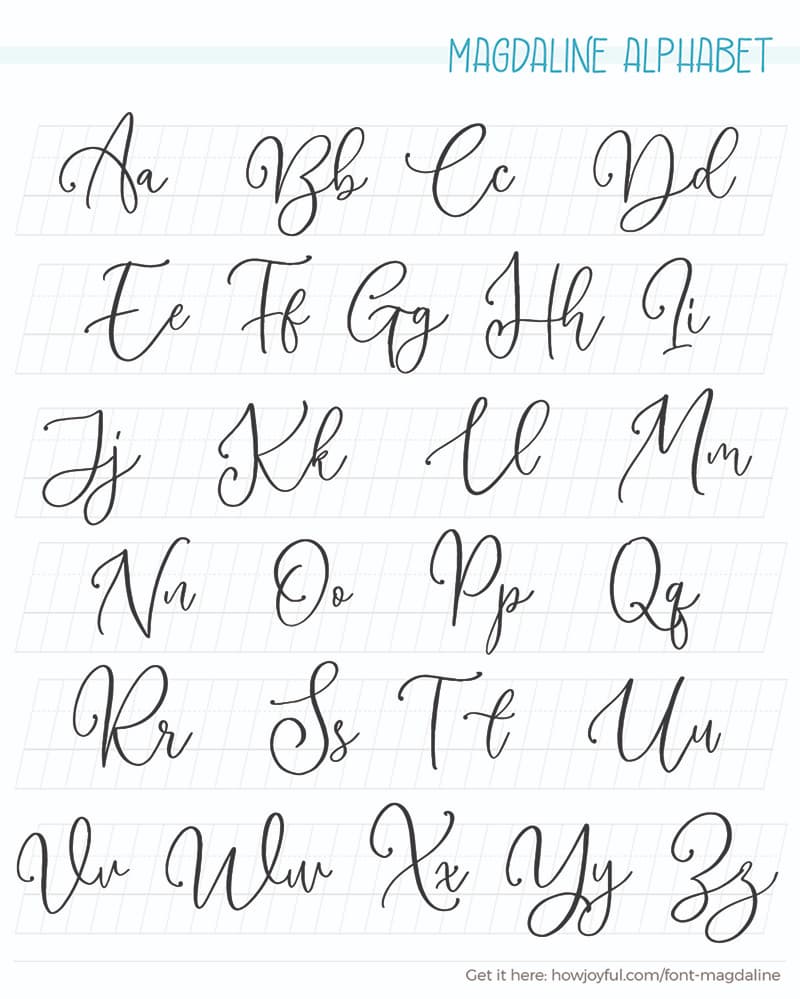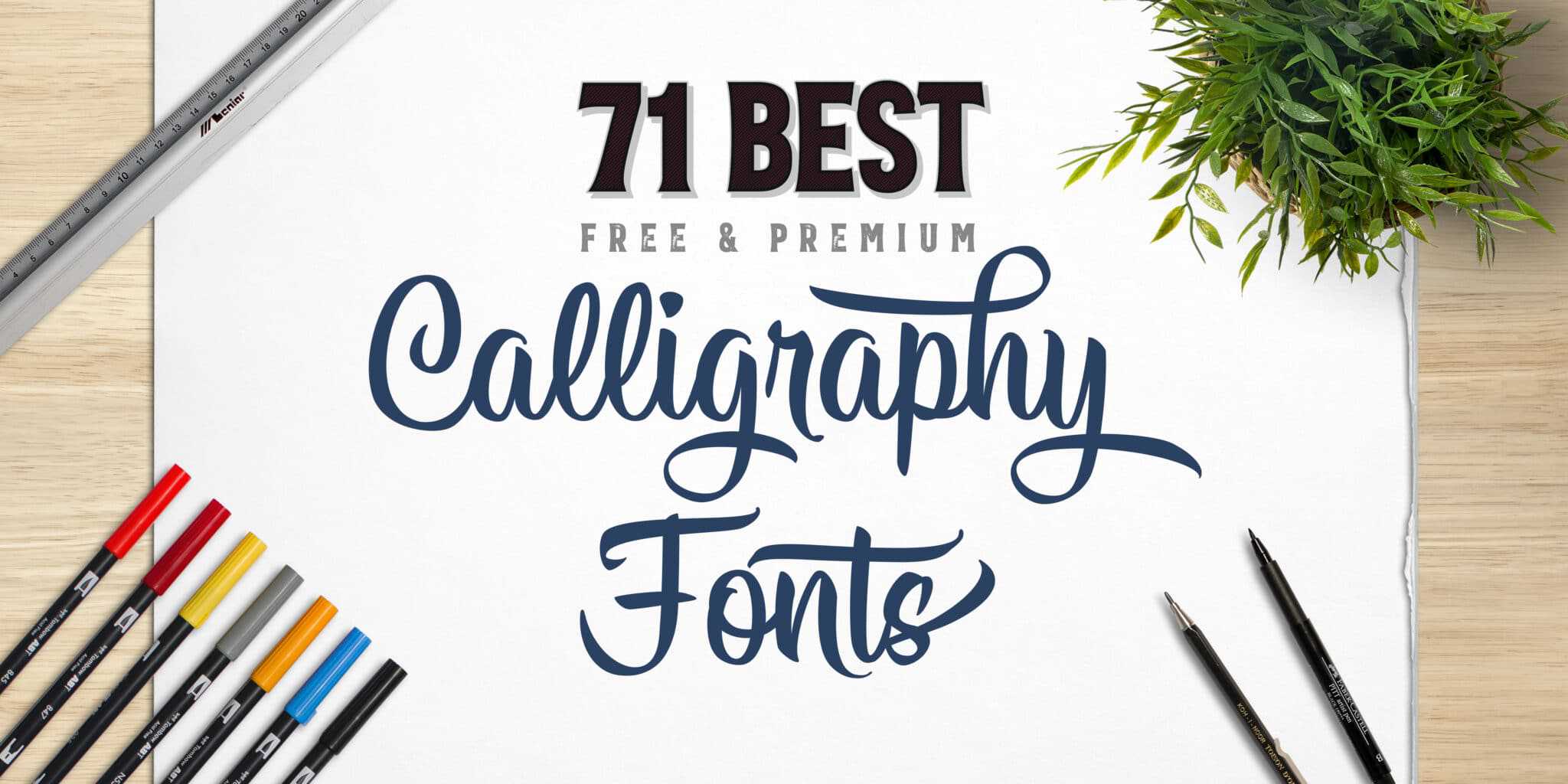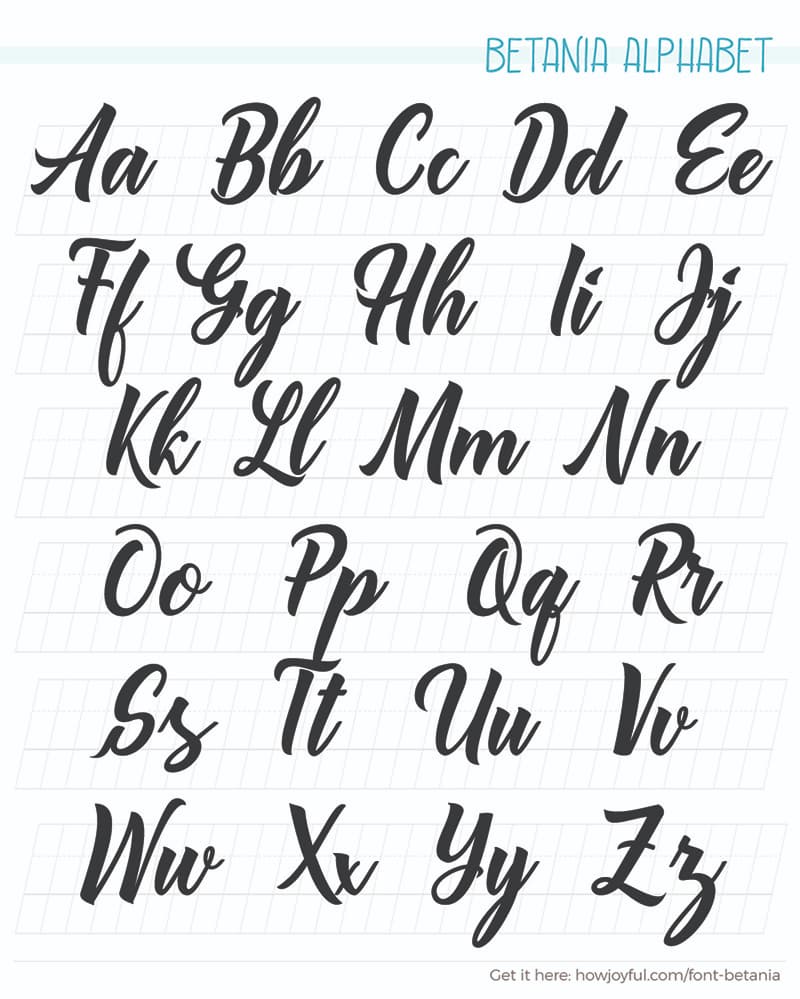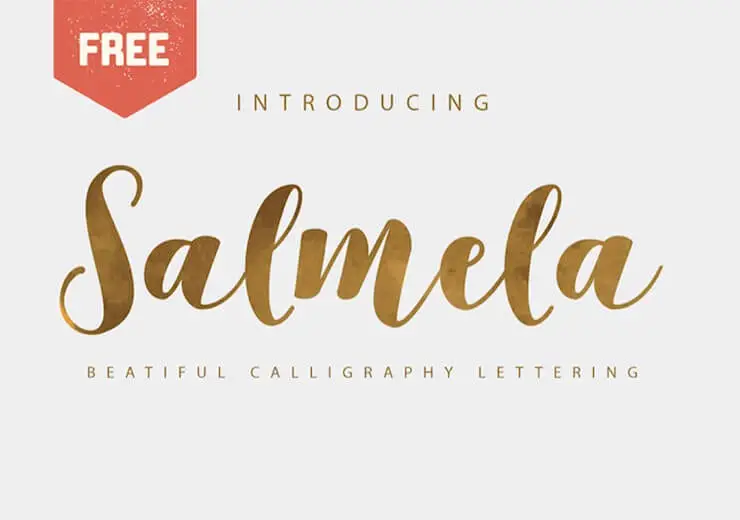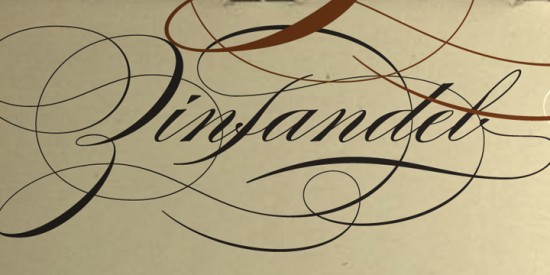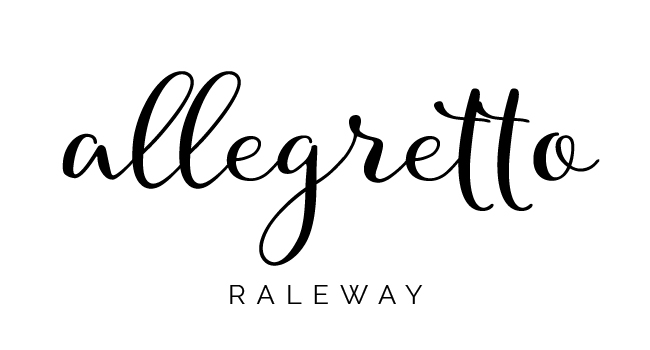
When you start modifying the shapes of the letters you are now illustrating hand-drawn lettering. It usually involves a nibbed pen or brush.
Hand lettering is an art form that takes practice and discipline and can mimic calligraphy or other styles.
Oleo Script by Soytutype Fonts. According to the designer the font is an ode to the late 19 th century American calligrapher Louis Madarasz known as the most skillful penman the world has ever known. Hand-lettered is the style where you draw each letter individually as opposed to writing them as in cursive or calligraphy.
La Sonnambula ffp by deFharo Category. Bitterlove Font is a modern calligraphy font by Letterafa Studio. We gathered an awesome selection of calligraphy alphabet fonts.
Cool Letter Generator Fancy Copy Paste Font Generator Lettering Styles Alphabet Cool Lettering Alphabet Fonts. Burgues Script created by Alejandro Paul is a typical font family of calligraphy style. Fl br th st etc.
On calligraphy fonts some of the most popular ligatures are the ones with double letters ex. Aug 8 2018 - Explore Jenny Moody Sullivans board Calligraphy Fonts followed by 559 people on Pinterest. This font was particularly crafted for those who need a beautiful and refreshing look to their designs.
The height of calligraphy was reached in the middle age where monks developed the narrow writing style called gothic allowing more words to fit on a single line as paper was expensive at the time. They often look as if they were drawn with according to the designer the font is an ode to the late 19th century american calligrapher louis. It has flowing letters that will give your designs a unique and sweet look with many lovely caracters.
Andyou is PUA encoded which means you can access all of the glyphs and swashes with ease. See more ideas about lettering hand lettering calligraphy fonts. The main sub-styles are traditional calligraphy and modern calligraphy.
Motion Picture - Måns Grebäck. Lily of the Valley_Personal_Use by dcoxy - Greg Medina Category. A casual bold calligraphy font with flowing and legible non connected lines Oleo Script available in bold and regular can be used in many situations where a modern and trendy feel is required.
The writing is readable but is usually extravagant and embellished with flourishes. Bitterlove font is perfect. At The End Of The Day Font Fonts Quotes Tattoo Fonts Tattoo Quotes.
Chinese Jpn Arabic Mexican Roman Greek Russian Various. Monsieur La Doulaise Font A tribute to the styles of calligraphy in the United States from the 20th century Monsieur La Doulaise is a stunningly stylish and elegant looking font. Oo ff ll ee etc Other common ligatures are those that make some of the most used letter combinations more special ex.